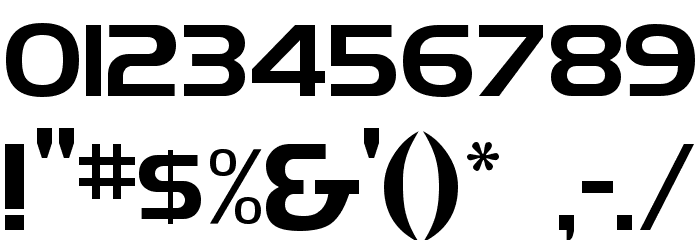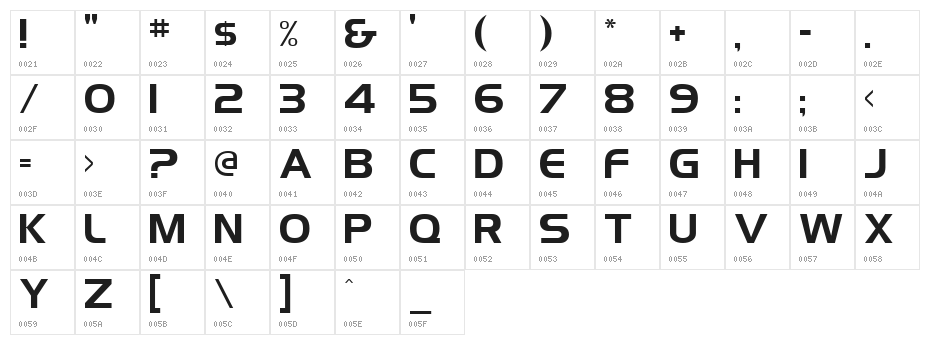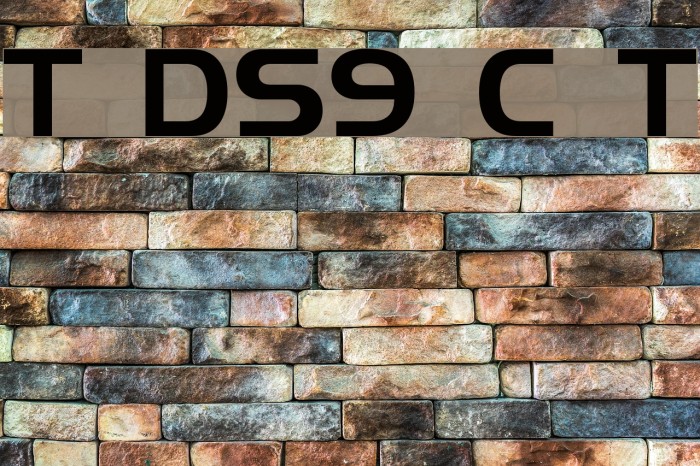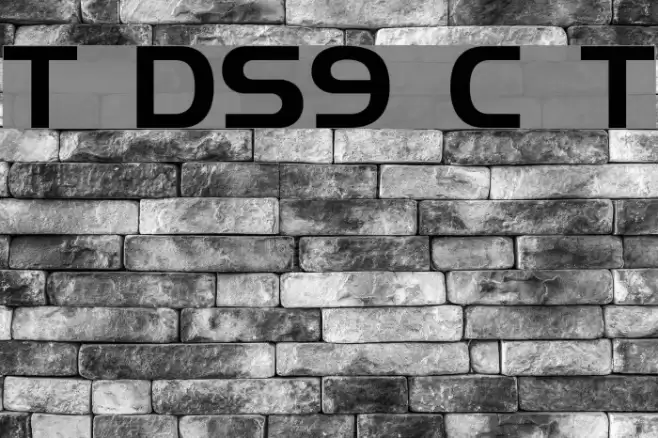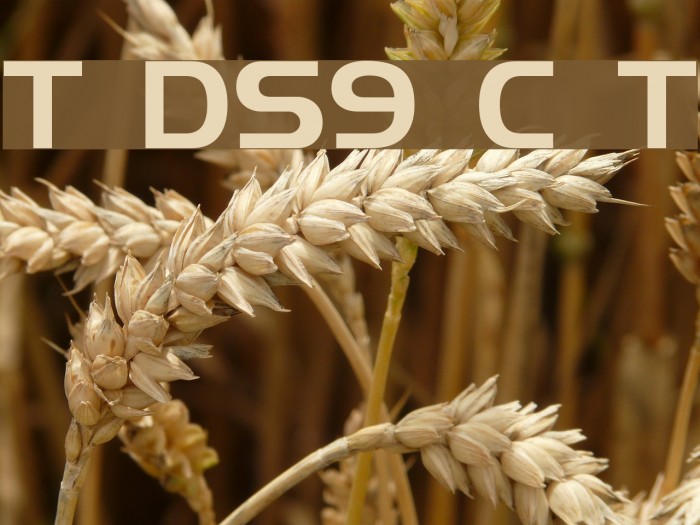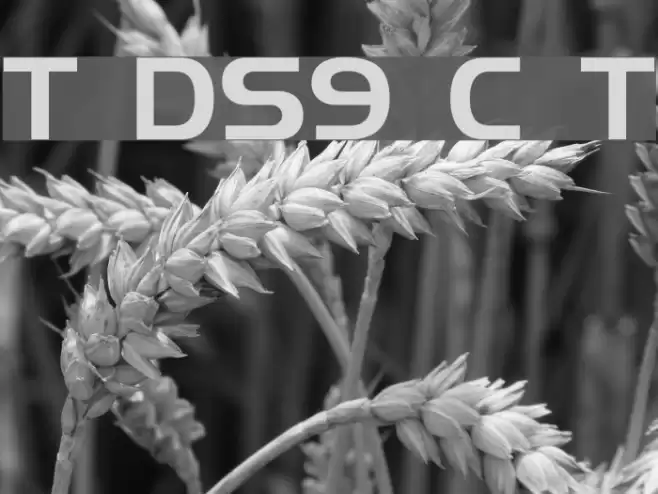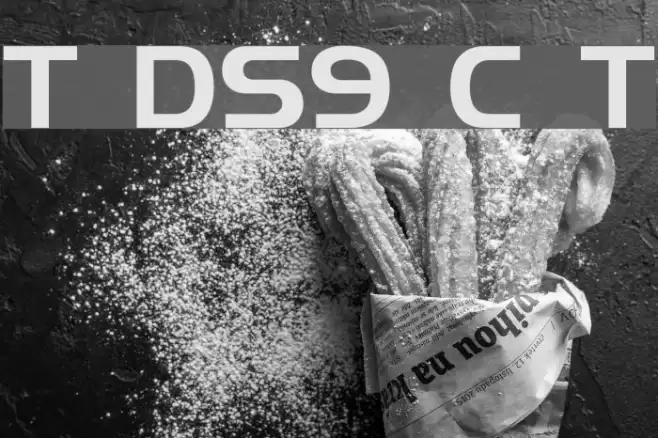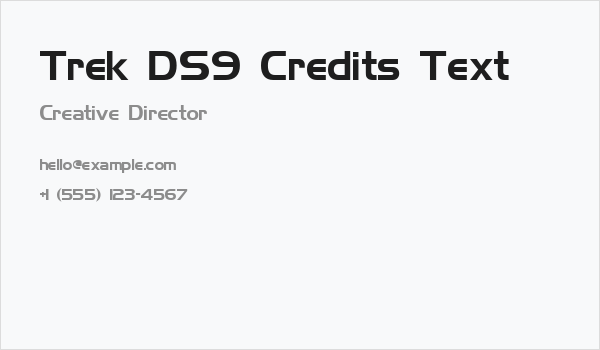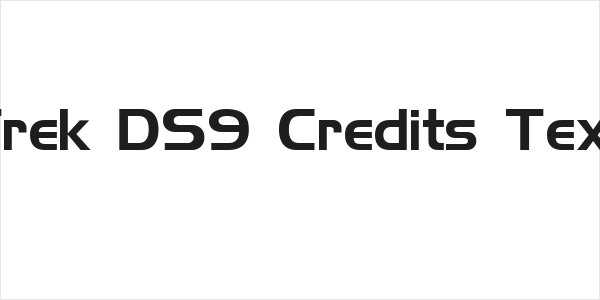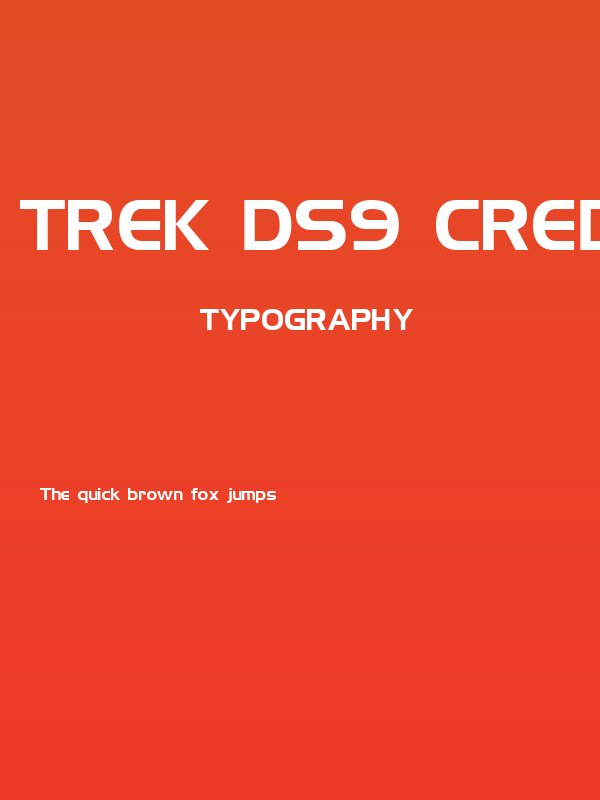
Trek DS9 Credits Text Font
Trek DS9 Credits Text Description
This font features a bold and futuristic design, characterized by its geometric shapes and clean lines. The uppercase letters are strong and assertive, with a slight angularity that adds a modern touch. The lowercase letters maintain a consistent style, offering a harmonious blend with the uppercase. Numbers are distinct and easy to read, while the special characters complement the overall aesthetic. The font's uniform stroke width and balanced proportions make it suitable for a variety of applications, ensuring legibility and impact.
Use CaseHeadlines, Logos, Branding
Proposed ProjectsIdeal for sci-fi themed projects, technology branding, video game interfaces, and modern advertising.